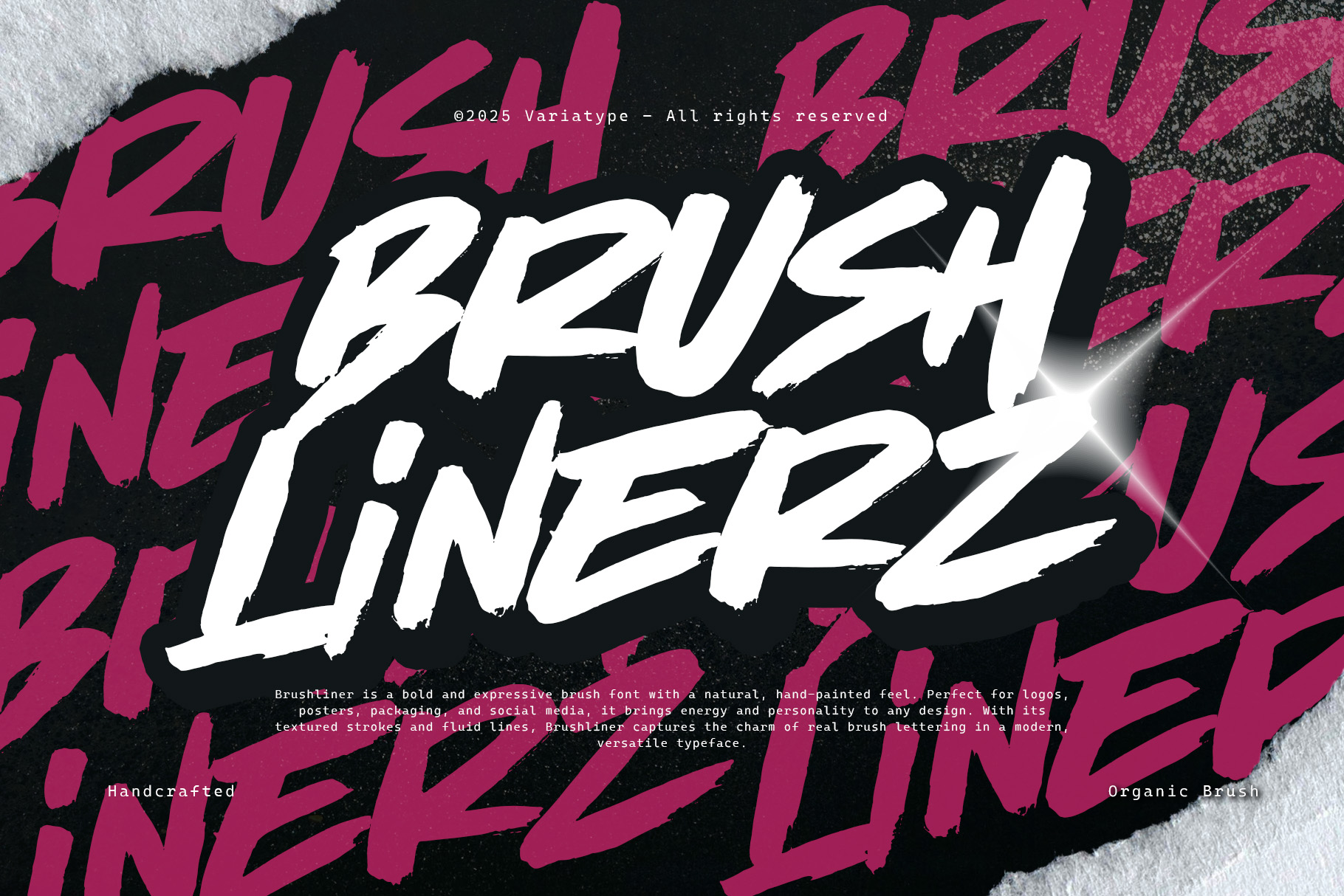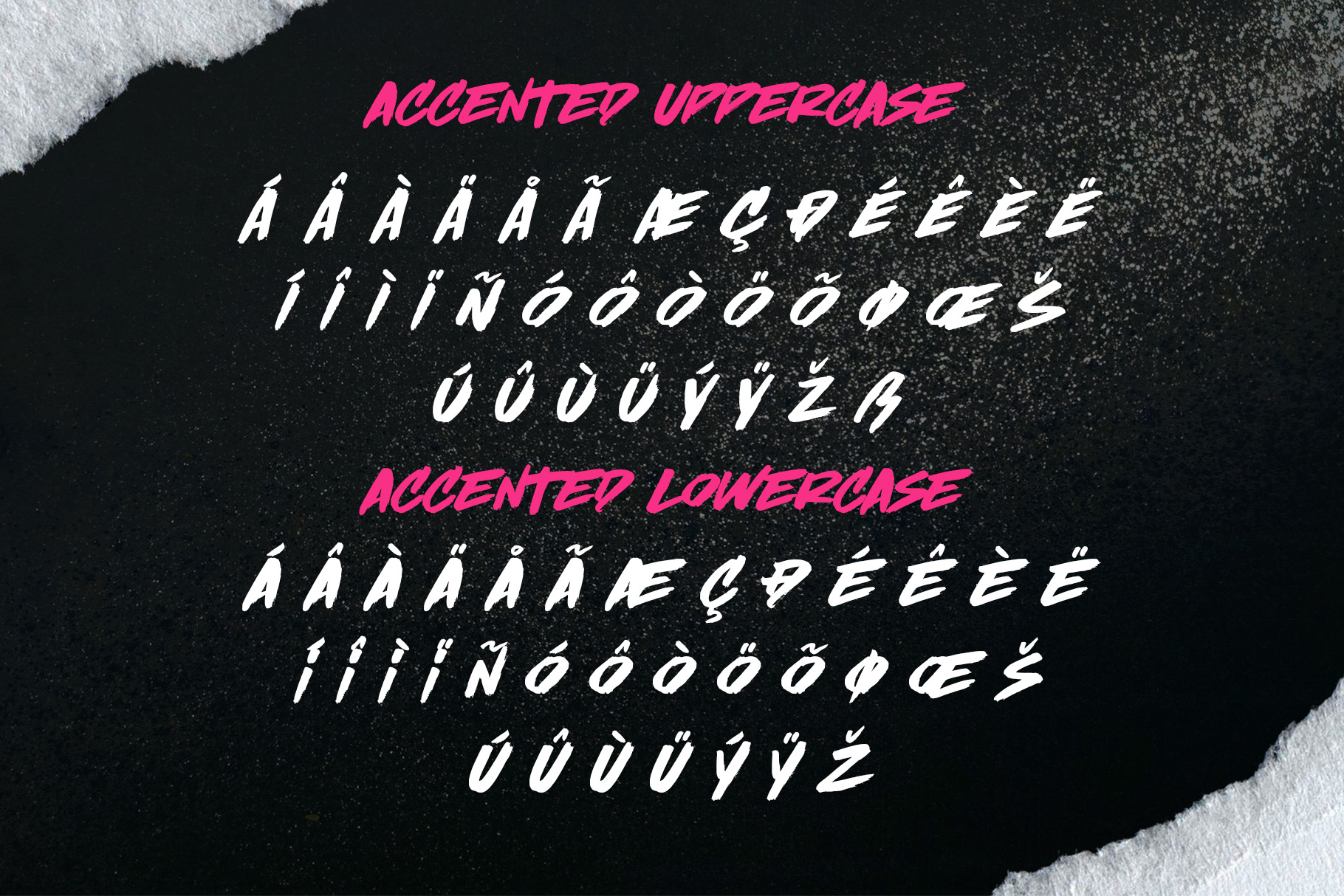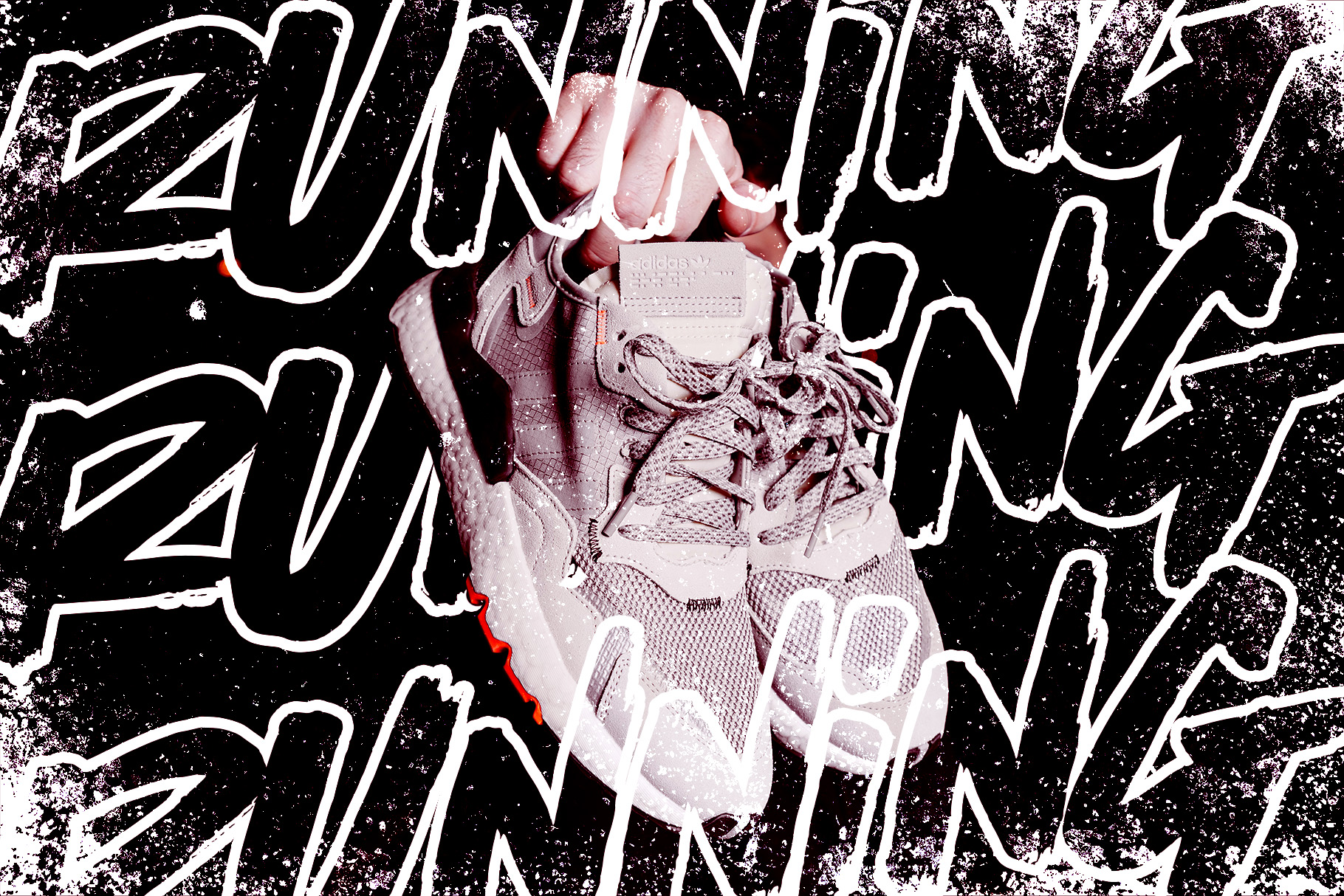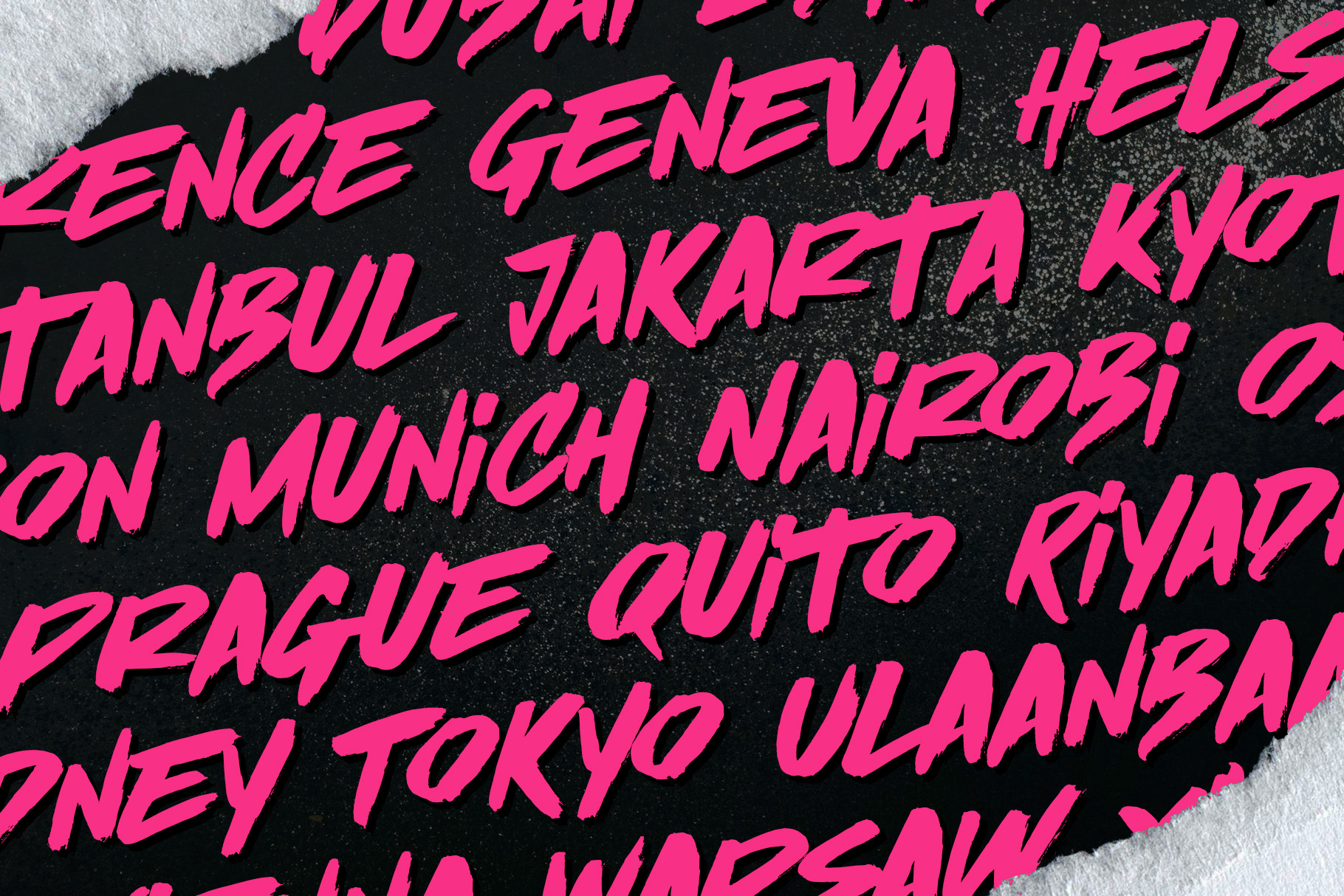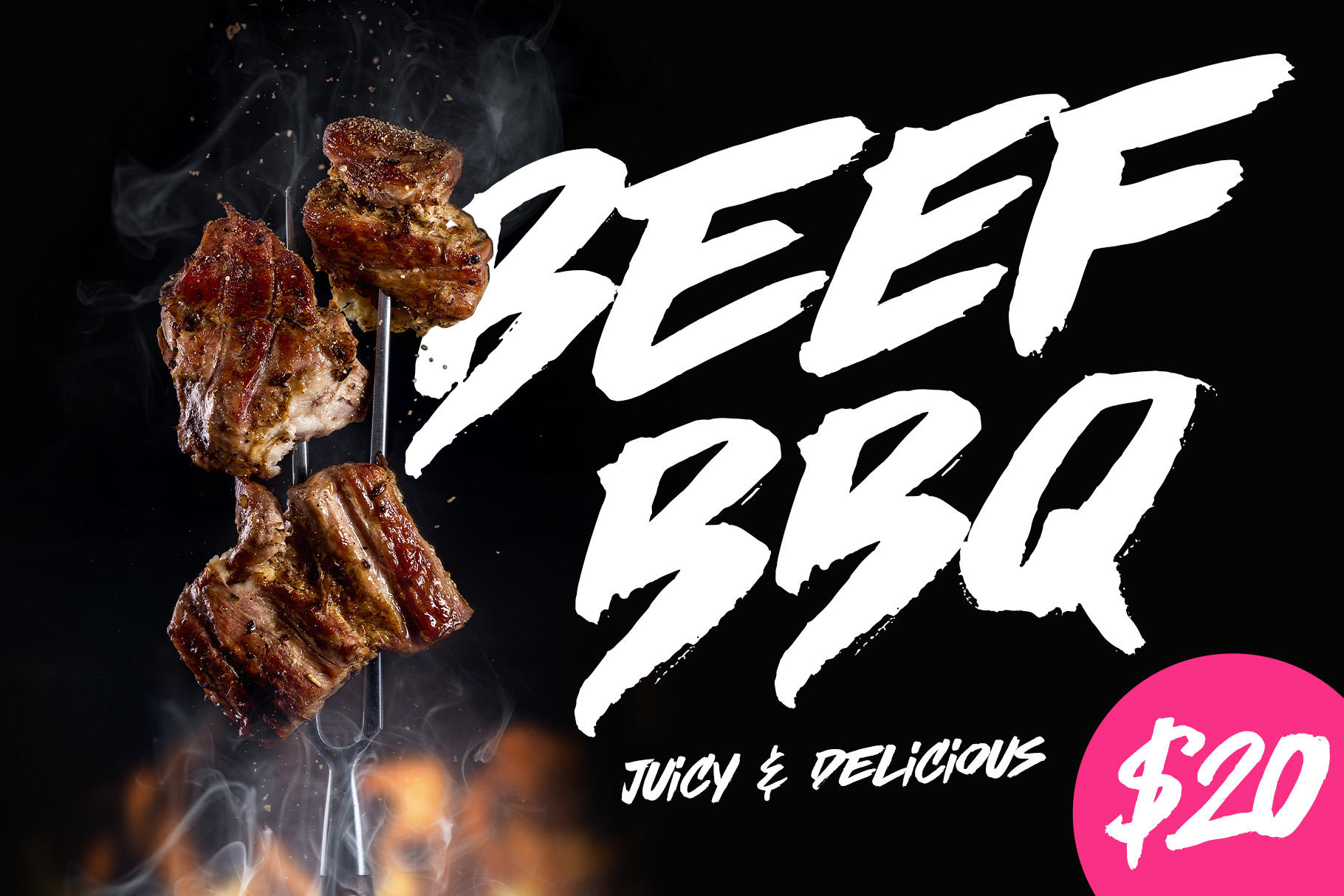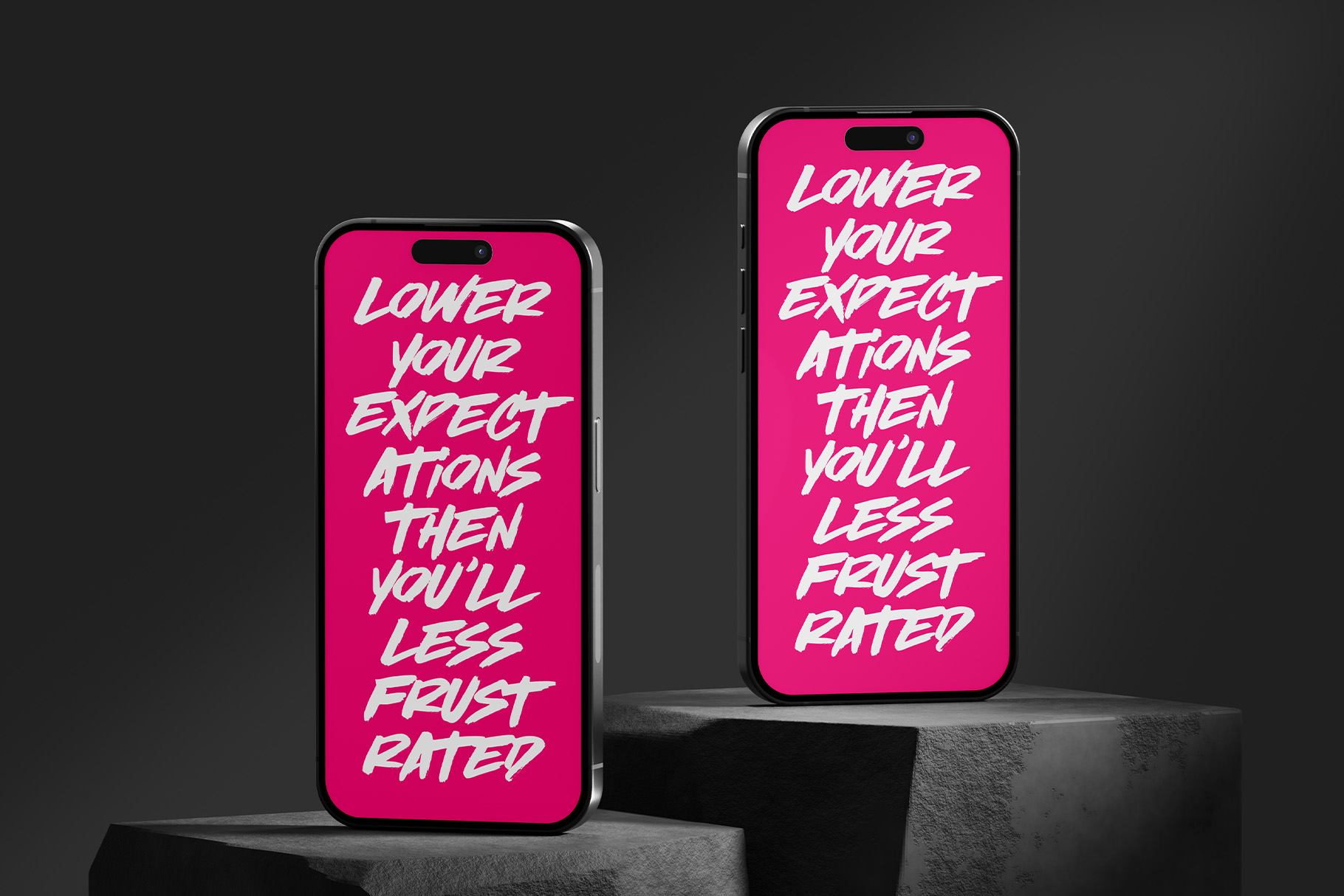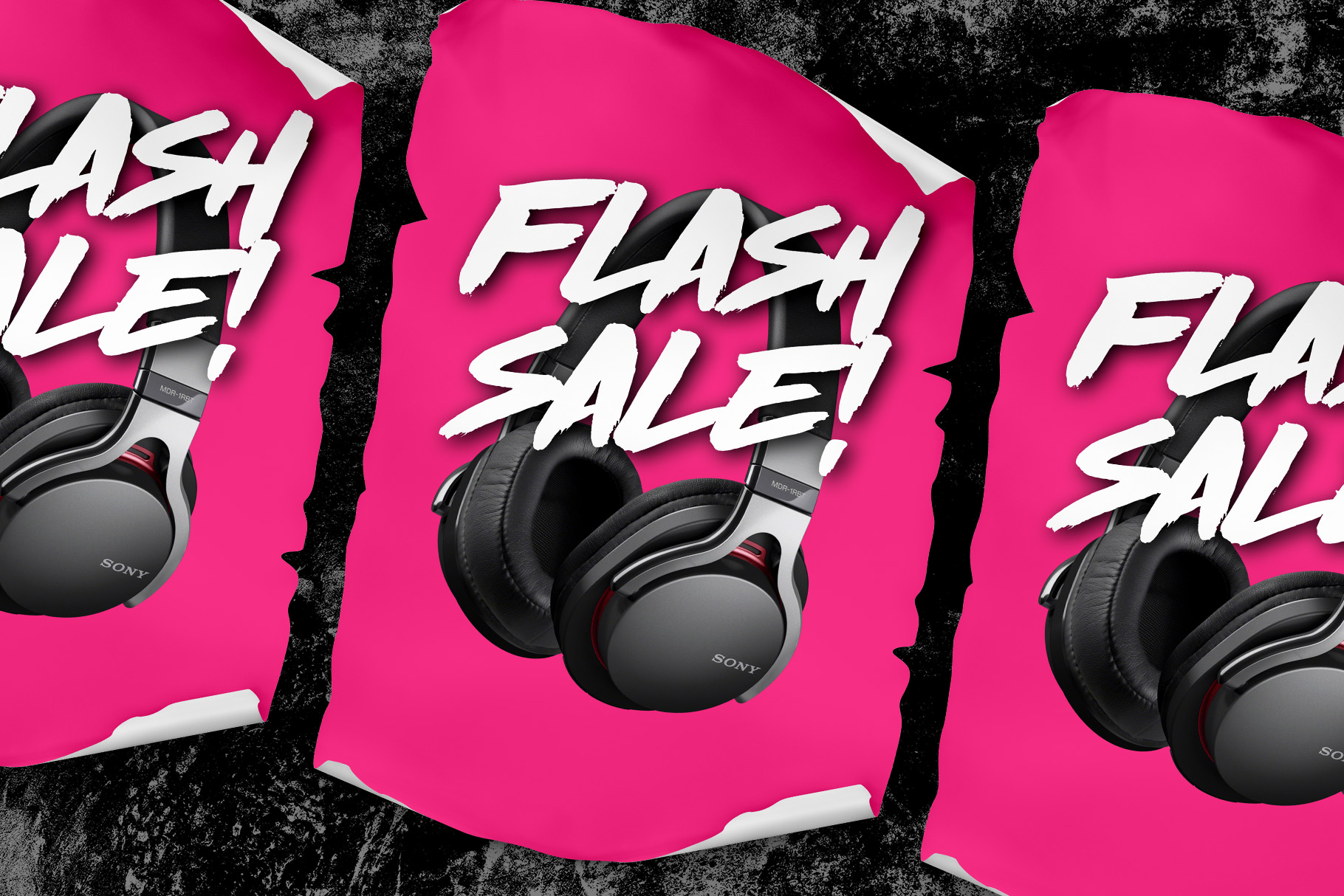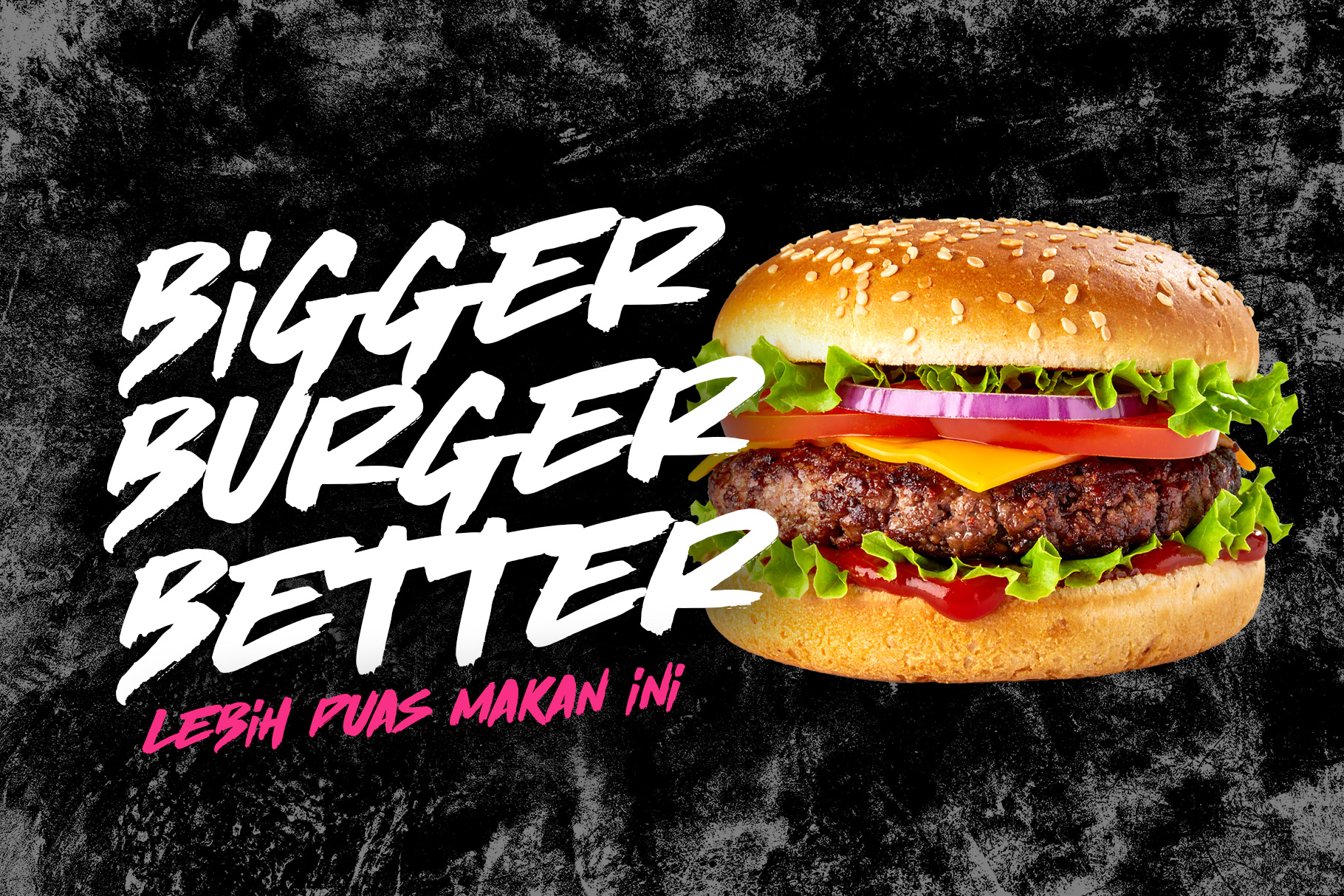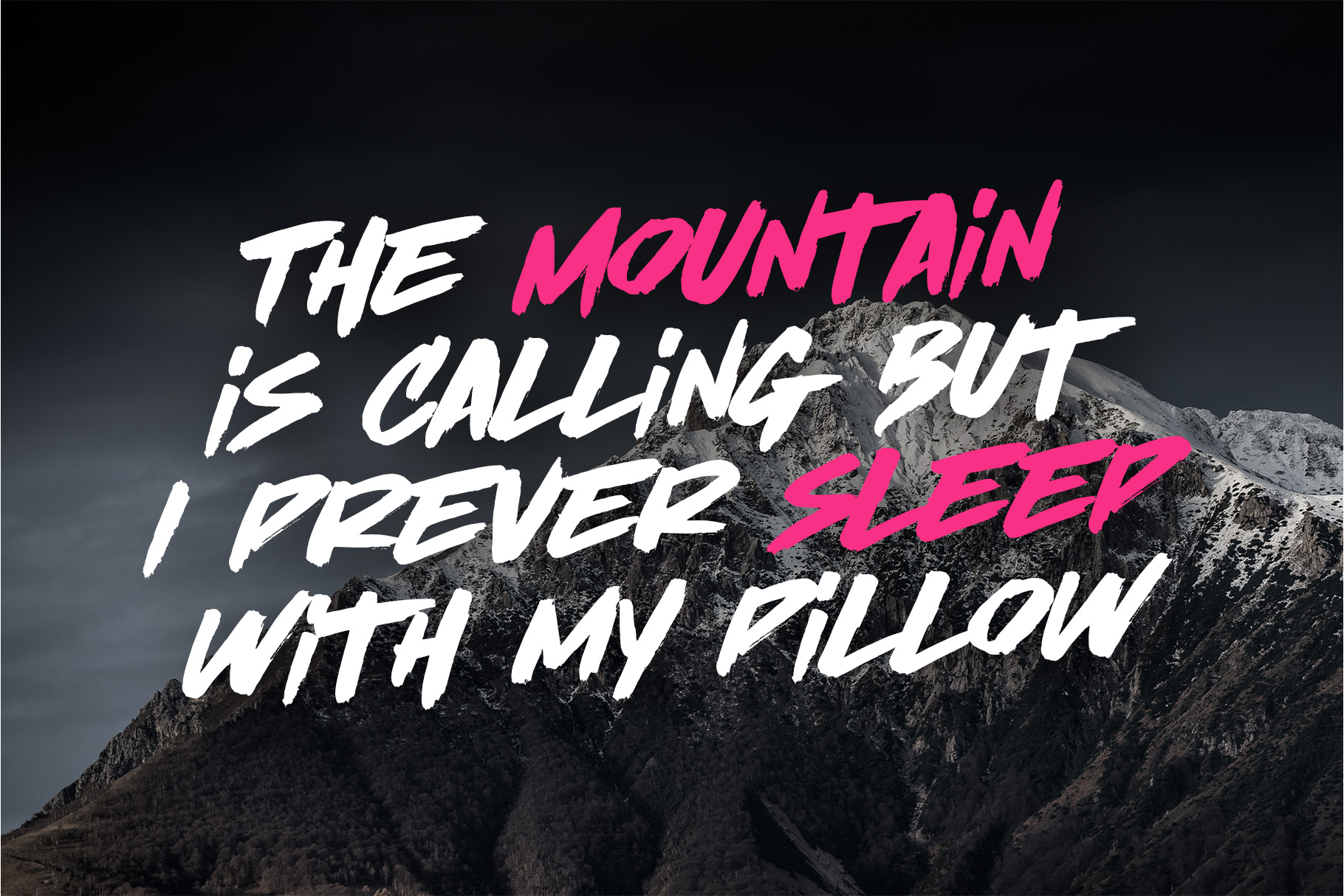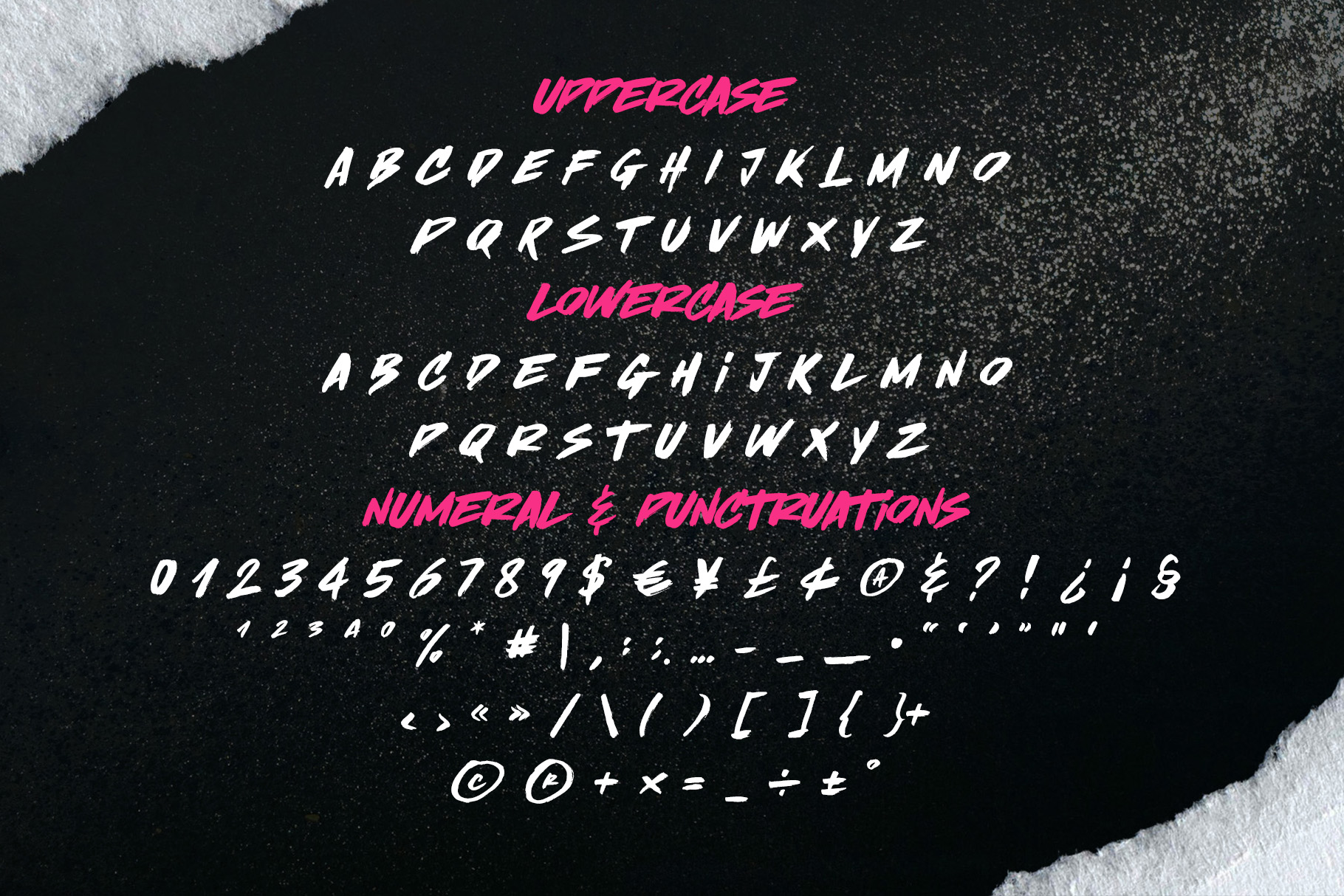
Brushliner is a bold and expressive brush font with a natural, hand-painted feel. Perfect for logos, posters, packaging, and social media, it brings energy and personality to any design. With its textured strokes and fluid lines, Brushliner captures the charm of real brush lettering in a modern, versatile typeface.
FONT FEATURES
- Additional Accents
- 69 Languages
- Kerning